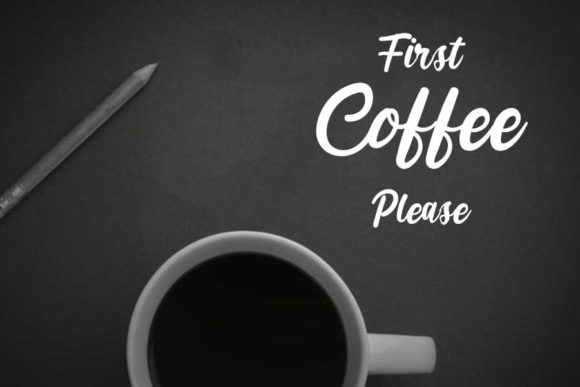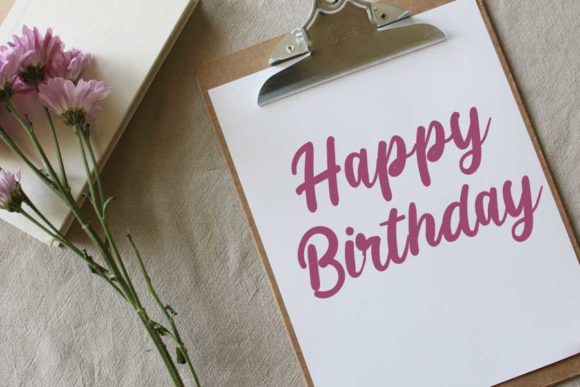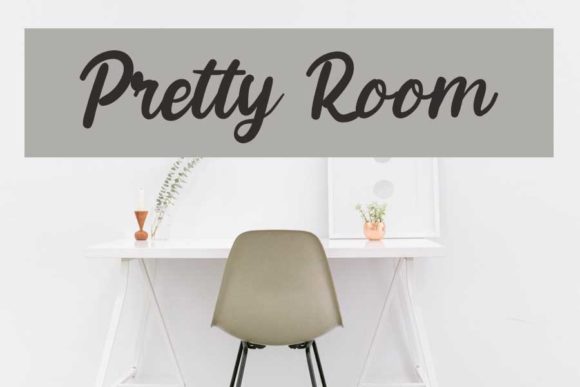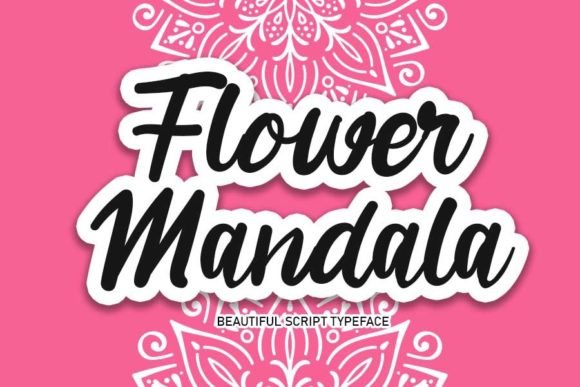
Introduction to Flower Mandala Font
Flower Mandala is a sweet and relaxed handwritten font.
Its natural and unique style makes it incredibly fitting to a large pool of designs Fall in love with it and bring your projects to the highest levels.
Flower Mandala Font offers exceptional quality and versatility, making it a valuable addition to your design toolkit. Whether you’re creating for personal projects or commercial use, Flower Mandala Font delivers professional results.